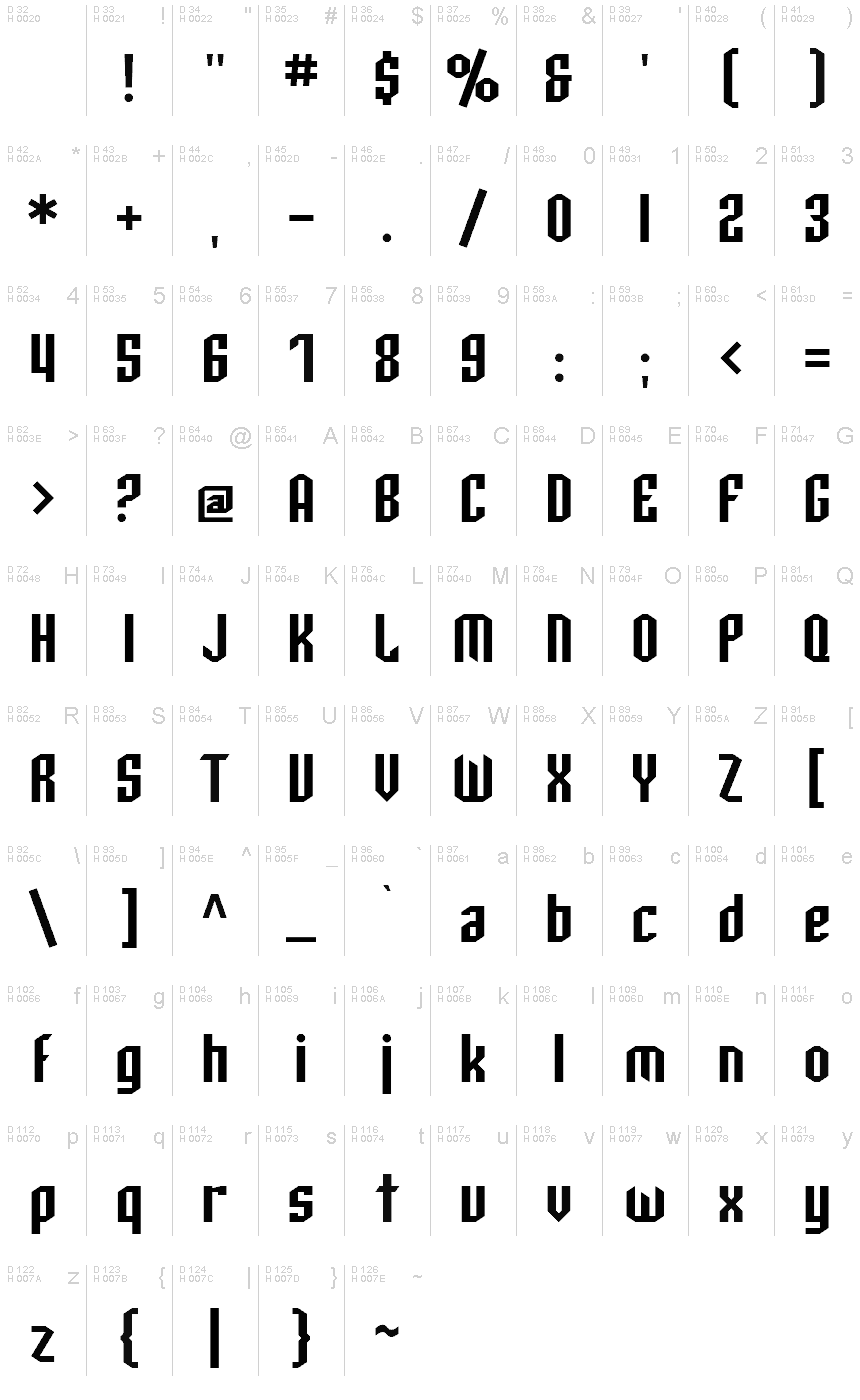
SF Archery Black
SF Archery Black, a standout creation from ShyFonts Type Foundry, is a distinctive gothic typeface that fuses historical gravitas with a modern twist. This semi-bold iteration boasts an extra-condensed width, carving out a compelling visual narrative that commands attention.
The font's sharp geometric cut and structured form give it an air of contemporary sophistication. The SF Archery family's aesthetic appeal lies in its clean lines and gothic undertones, making it as impactful in print as it is on digital platforms. It exudes confidence without sacrificing elegance—a balance not easily struck in today’s typographic landscape.
Ideal for branding, editorial design, or any creative project yearning for a type with presence and versatility, SF Archery Black delivers an avant-garde flair while maintaining readability. Its unique character ensures that any message stands out with style and substance.
The font's sharp geometric cut and structured form give it an air of contemporary sophistication. The SF Archery family's aesthetic appeal lies in its clean lines and gothic undertones, making it as impactful in print as it is on digital platforms. It exudes confidence without sacrificing elegance—a balance not easily struck in today’s typographic landscape.
Ideal for branding, editorial design, or any creative project yearning for a type with presence and versatility, SF Archery Black delivers an avant-garde flair while maintaining readability. Its unique character ensures that any message stands out with style and substance.